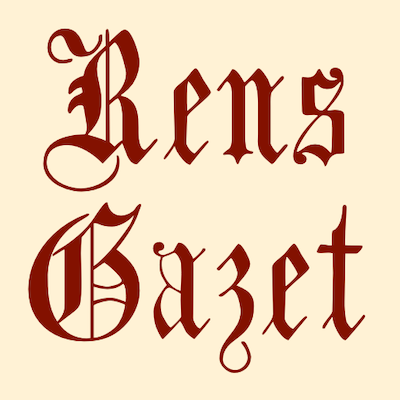
The fonts below are in the medieval style. All fonts that are considered medieval were developed much later but they were inspired by the scripts of the medieval period.
NeuAltisch was used in Donnie
Darko, and is visible on the trailers.